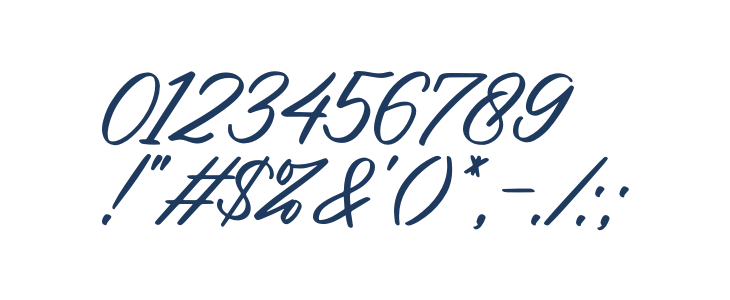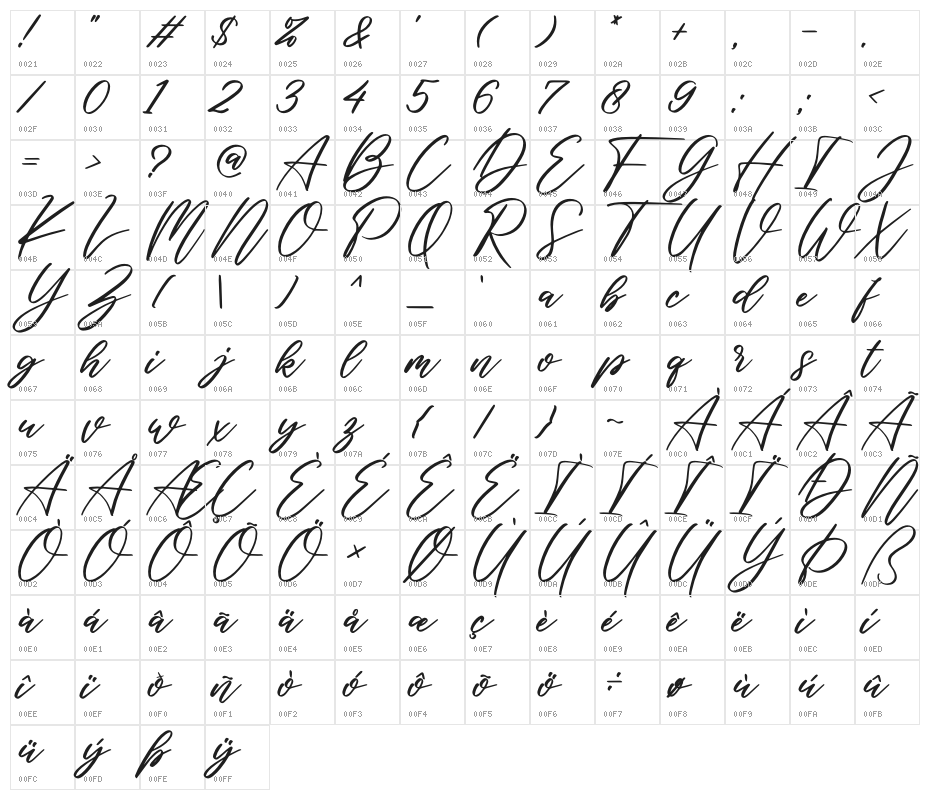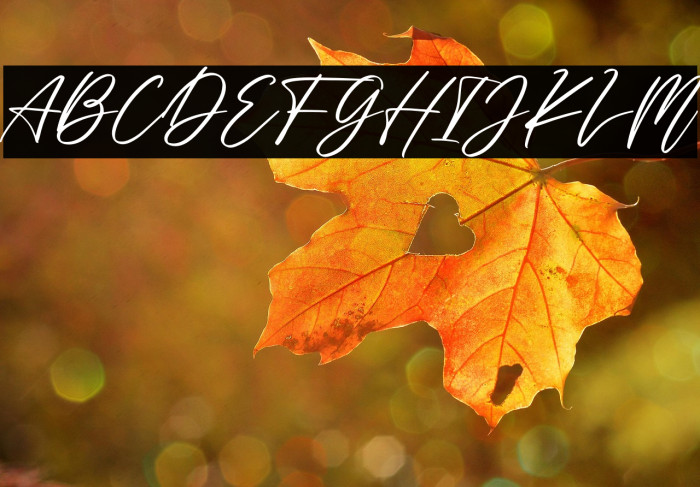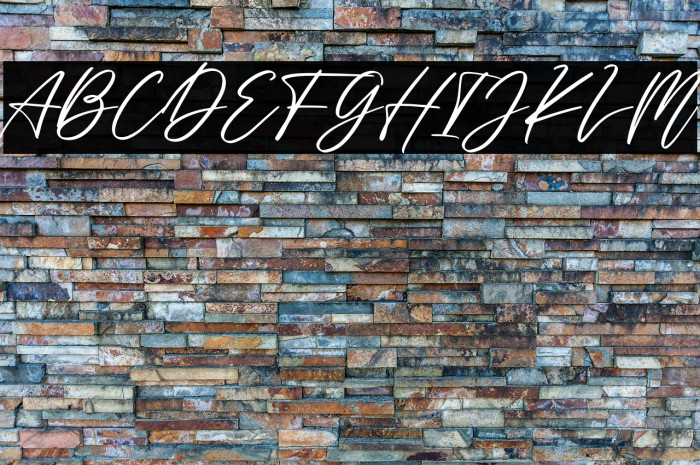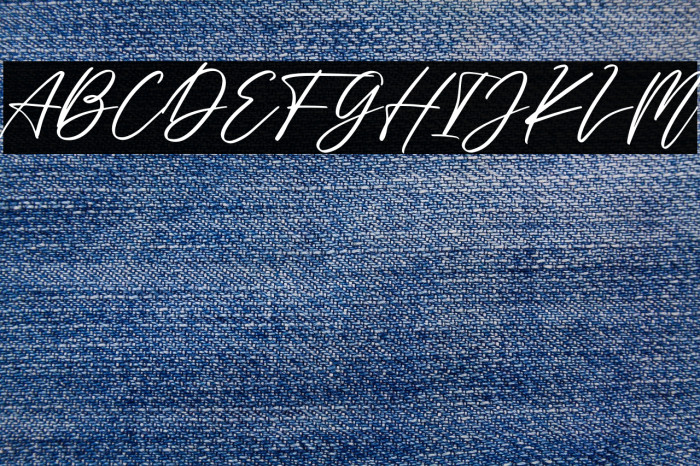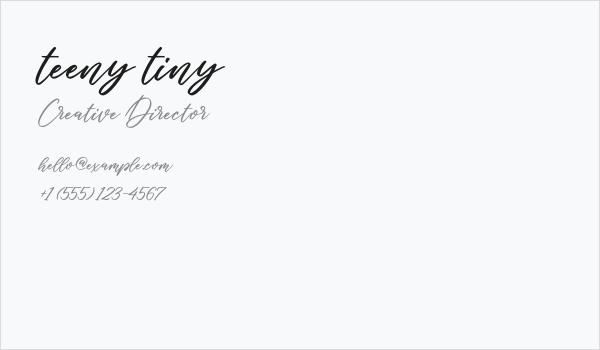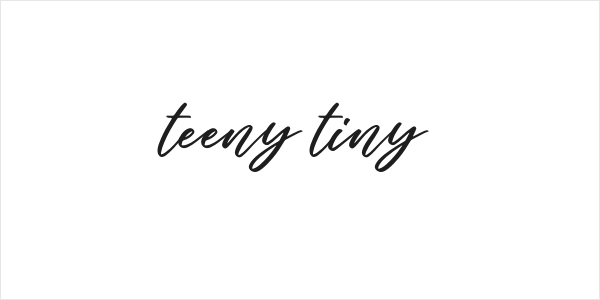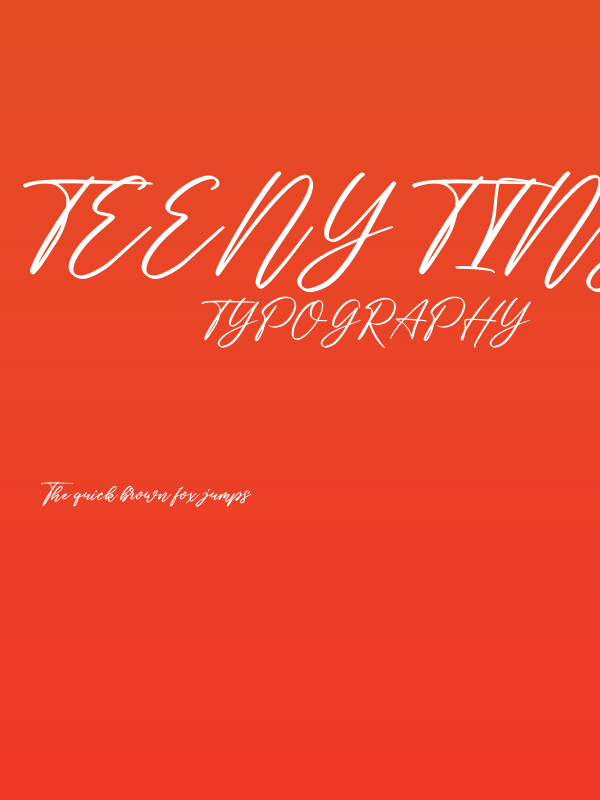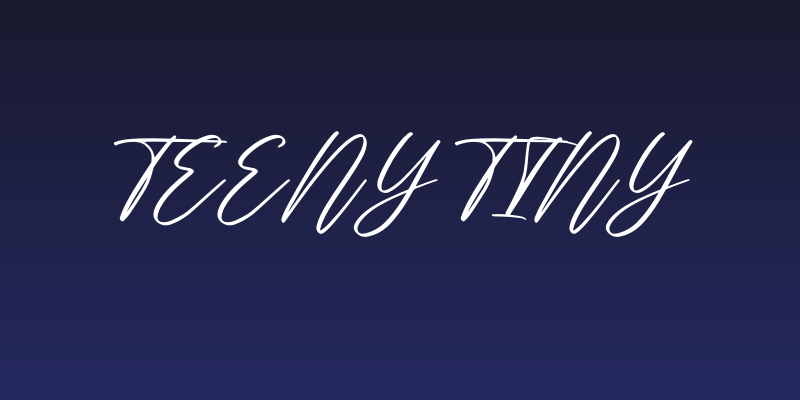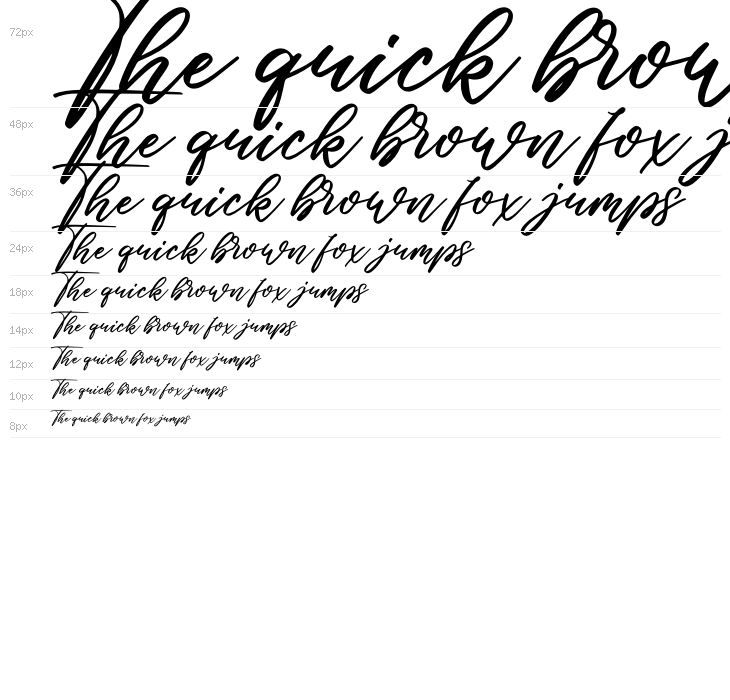
teeny tiny Font
teeny tiny Description
This font features a lively and expressive script style, characterized by its fluid and connected letterforms. The uppercase letters are elegant and slightly elongated, while the lowercase letters maintain a consistent flow with smooth curves and loops. The numbers and special characters complement the overall style, maintaining the same dynamic and cursive feel. This font exudes a sense of elegance and creativity, making it suitable for projects that require a personal and artistic touch. The strokes are moderately thick, providing a balanced contrast that enhances readability while preserving the decorative nature of the script.